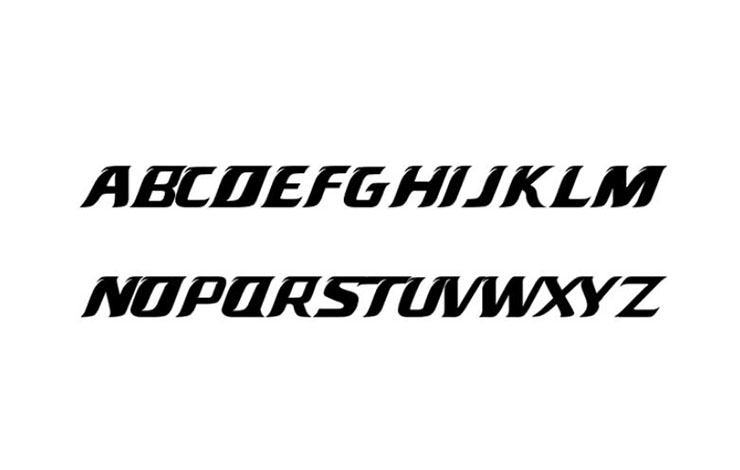
Introducing Detroit Lions Font! The Detroit Lions is a professional American football team located in Detroit, Michigan.
They compete in the National Football League (NFL) as a member of the North Division of the National Football Conference (NFC). The team plays its home games at Ford Field in the heart of downtown Detroit.
The font is a unique and modern display font that features bold, blocky letterforms with sharp edges and clean lines, giving it a strong appearance.
The font is highly versatile and is used in various applications, including logos, jerseys, merchandise, and marketing materials.
The closest free font we can find that resembles the logo lettering is Wayne created by Tobin Strong. It is available in uppercase letters, numerals, and limited punctuation marks.
It is a modern and bold typeface that reflects the strength and competitive spirit of the Detroit Lions football team.
Because of its bold italic look, this typeface is useful for any other script or display design. You can also use its free version to create designs for banners, posters, advertisements, and social media posts.
Moreover, It is an excellent choice for designs that require a bold and impactful look, as it reflects the team’s strong and competitive spirit.
Its versatility and legibility make it an excellent choice for various design applications, from branding to marketing materials.